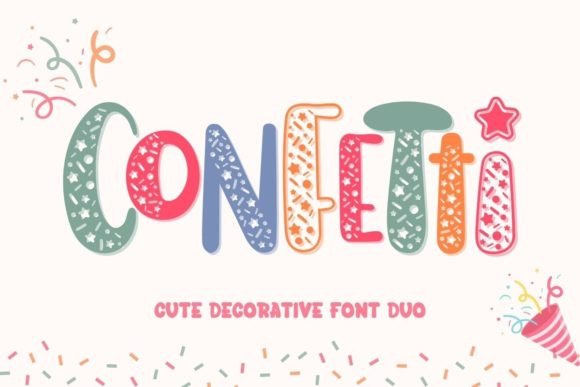
Introducing Confetti Font, the ultimate choice for those seeking the best font for bold letters. Created by the talented AnningArts, this lovely decorative Duo Font will leave you spellbound. With its unique combination of confetti and chubby handwritten letters, Confetti Font adds a captivating touch to any project.
Imagine the joy of creating stunning Christmas cards that stand out from the rest. With Confetti Font, your holiday greetings will sparkle with the magic of confetti, spreading cheer and delight to your loved ones. Let your wedding invitation cards exude elegance and charm, as Confetti Font adds a touch of whimsy to your special day.
But that's not all – Confetti Font is not limited to paper. Decorate bags, mugs, and beautiful stationery with this delightful font, and watch as everyday items transform into extraordinary works of art. Make a bold statement on social media, as your posts and captions come alive with the vibrant energy of Confetti Font.
Indulge your creativity and let your imagination run wild with the endless possibilities of Confetti Font. Its versatility knows no bounds, allowing you to explore various projects with ease. Whether you're designing a logo, creating eye-catching posters, or enhancing your website's aesthetics, Confetti Font will elevate your designs to new heights.
Immerse yourself in the world of Confetti Font and experience the joy of creating visually stunning masterpieces. Stand out from the crowd and make a lasting impression with this captivating font. Unlock the potential of your designs and let Confetti Font add a touch of magic to every project.